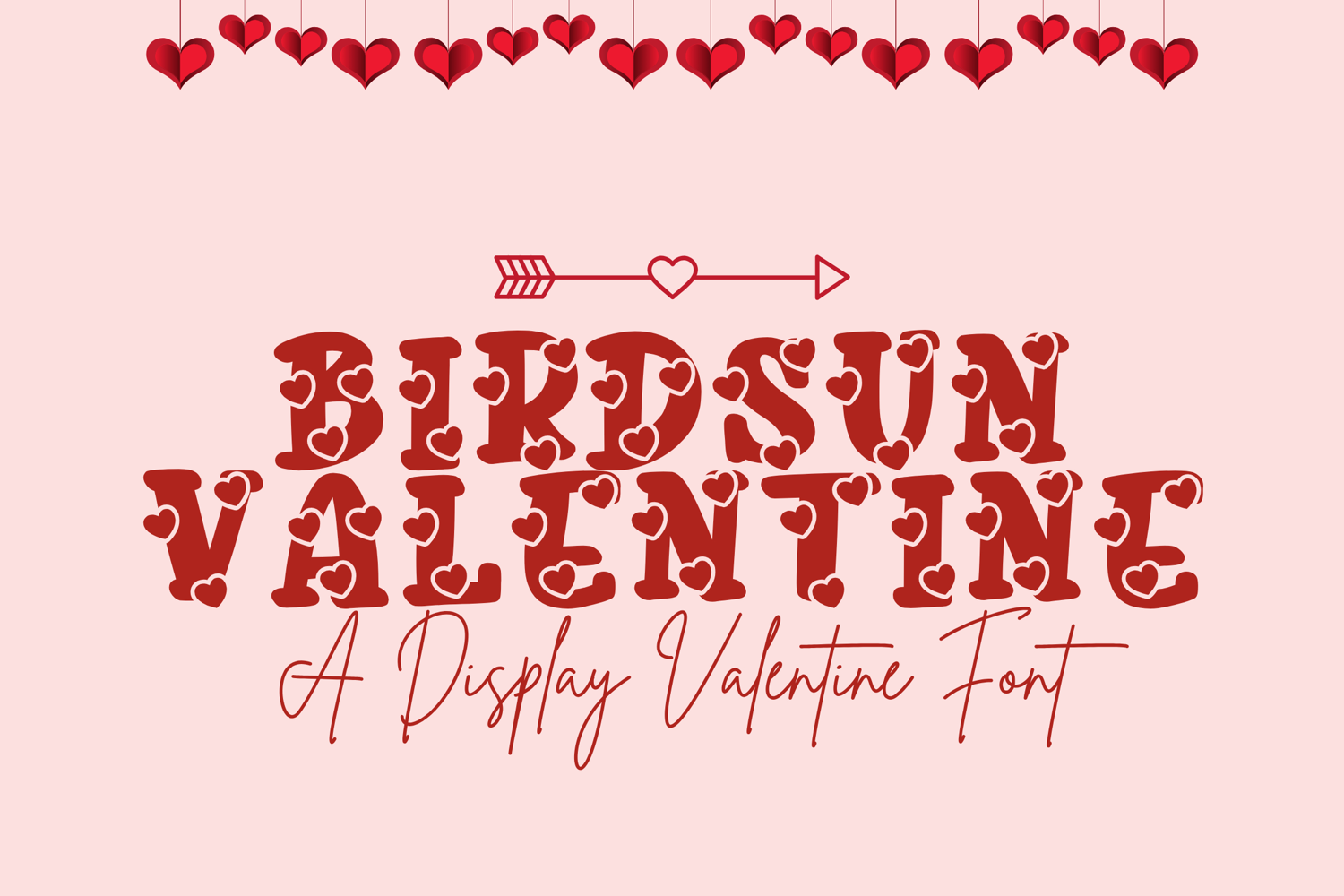
Birdsun Valentine - A Sweet and Romantic Handwritten Font
Birdsun Valentine
Celebrate love with every letter using Birdsun Valentine, a charming handwritten font designed to express affection, warmth, and playful romance. Its whimsical curves and heartwarming style make it perfect for Valentine's Day projects, wedding stationery, love notes, and so much more.
Birdsun Valentine brings a touch of joy and sincerity to your design, whether you're crafting heartfelt cards, cute quotes, or romantic brand elements.
💌 Perfect For:
• Valentine’s Day cards & crafts
• Wedding invitations & stationery
• Love letters & quotes
• Romantic branding & packaging
• T-shirts, mugs, and gift designs